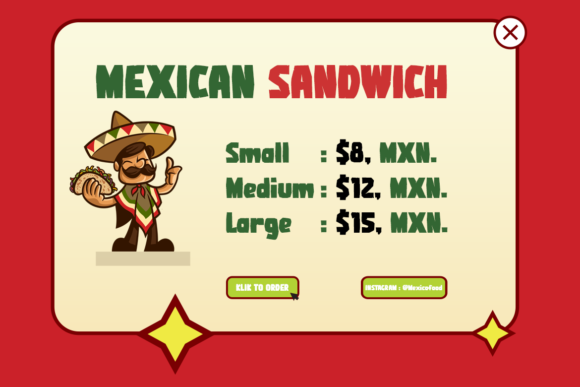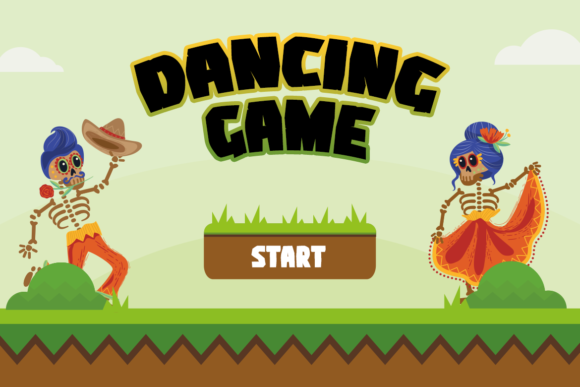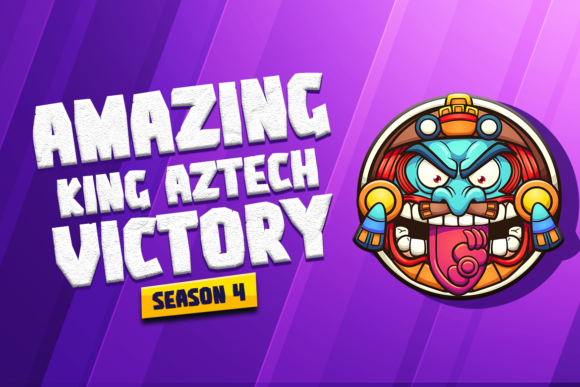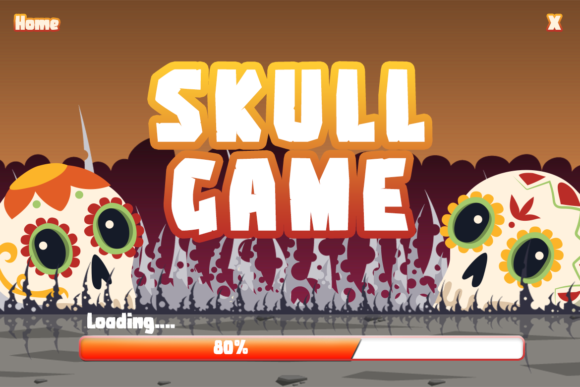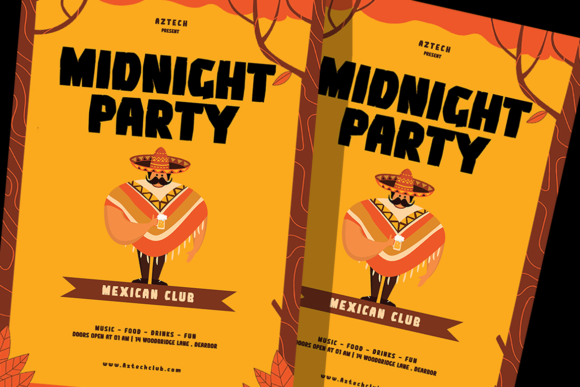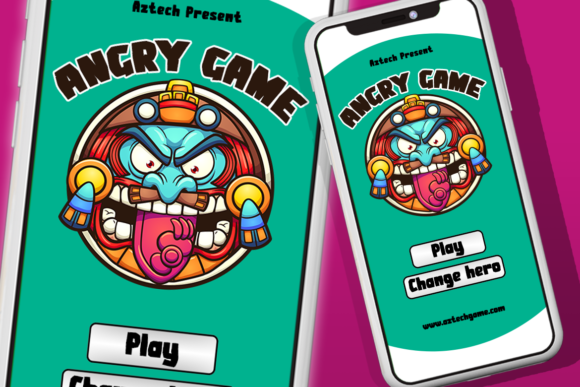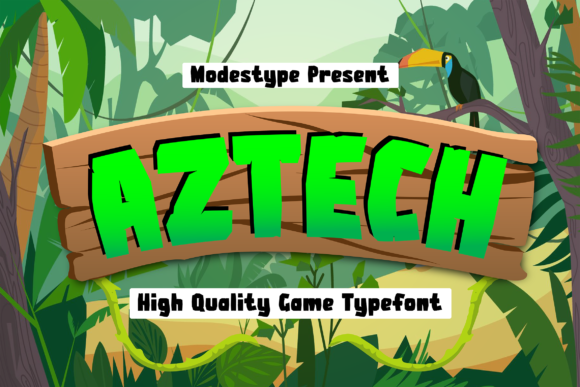
Introducing Aztech Font: The Ultimate Display Font for Fun and Playful Designs
Are you tired of using the same old fonts for your designs? Look no further! Aztech Font is here to shake things up with its cool, chunky lettering and fun display style. This exciting font is perfect for cartoon designs, playful creations, and anything related to fun and joy. In this article, we’ll dive into the world of Aztech Font and explore its features, benefits, and uses.
What is Aztech Font?
Aztech Font is a display font that boasts a unique, chunky lettering style that’s sure to grab attention. Its fun and playful vibe makes it an excellent choice for designers who want to add a touch of whimsy to their work. Whether you’re creating a cartoon character, designing a kids’ product, or simply want to add some personality to your text, Aztech Font is the perfect solution.
Key Features of Aztech Font
- Chunky Lettering: Aztech Font features thick, bold lines that give it a sturdy and playful feel.
- Fun and Playful: The font’s unique style is perfect for designs that require a touch of humor and whimsy.
- Display Font: Aztech Font is designed to be used as a display font, making it ideal for headings, titles, and short text.
- Easy to Read: Despite its chunky style, Aztech Font is surprisingly easy to read, even at smaller sizes.
Benefits of Using Aztech Font
So, why should you choose Aztech Font for your next design project? Here are just a few benefits of using this exciting font:
- Adds Personality: Aztech Font brings a unique personality to your designs, setting them apart from more traditional fonts.
- Versatile: This font can be used for a wide range of projects, from cartoon designs to playful branding and advertising.
- Kid-Friendly: Aztech Font’s playful style makes it an excellent choice for designs aimed at kids or families.
- Easy to Pair: Aztech Font pairs well with a variety of other fonts, making it easy to create visually appealing combinations.
Using Aztech Font in Your Designs
So, how can you use Aztech Font in your designs? Here are a few ideas to get you started:
- Cartoon Characters: Use Aztech Font to create fun and playful cartoon characters that leap off the page.
- Kids’ Products: Aztech Font is perfect for designing kids’ products, such as toys, games, and educational materials.
- Playful Branding: Add a touch of whimsy to your brand with Aztech Font, perfect for companies that want to showcase their fun side.
- Advertising: Use Aztech Font to create eye-catching advertisements that grab attention and put a smile on people’s faces.
Tips for Getting the Most Out of Aztech Font
To get the most out of Aztech Font, here are a few tips to keep in mind:
- Use it Sparingly: Aztech Font is a display font, so use it sparingly to add emphasis and create visual interest.
- Experiment with Colors: Aztech Font looks great in a variety of colors, so don’t be afraid to experiment and find the perfect hue for your design.
- Pair it with Other Fonts: Aztech Font pairs well with a range of other fonts, so try combining it with different styles to create a unique look.
Aztech Font is a fun, playful, and versatile display font that’s perfect for designers who want to add a touch of whimsy to their work. With its chunky lettering, easy readability, and kid-friendly style, Aztech Font is an excellent choice for a wide range of projects. Whether you’re creating cartoon characters, designing kids’ products, or simply want to add some personality to your text, Aztech Font is the perfect solution. So why not give it a try and see how it can bring your designs to life?